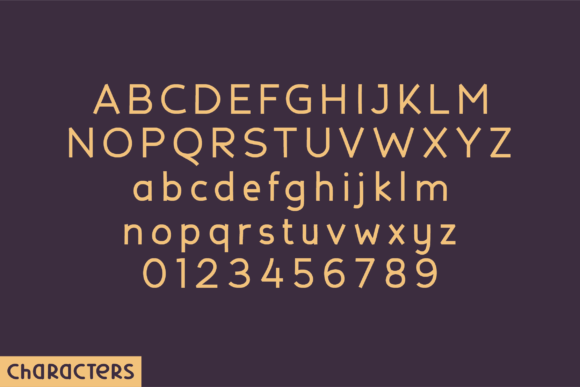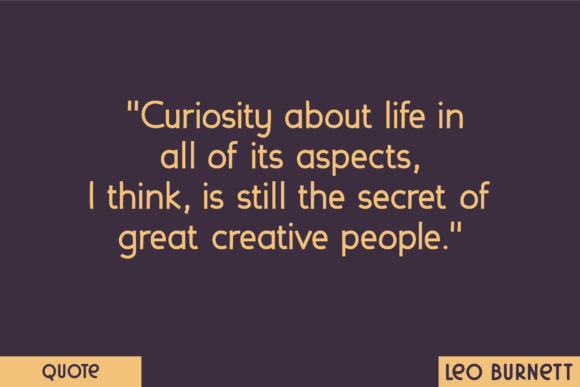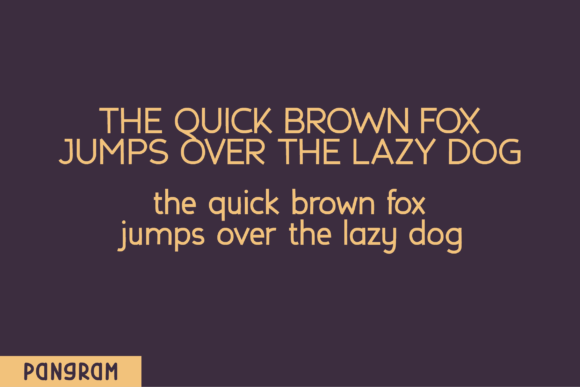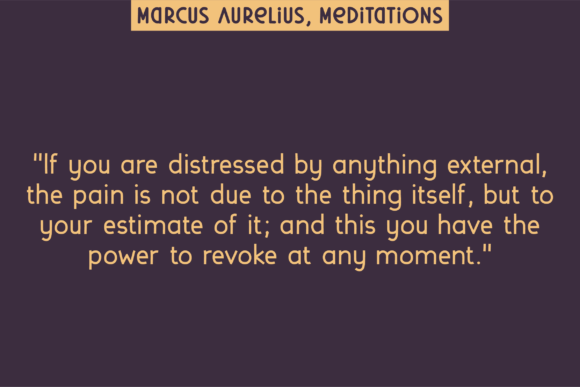
Introduction to Setteveli Font
Have you ever found yourself staring at a blank canvas, waiting for inspiration to strike? It’s a moment every designer knows all too well – the spark of creativity that sets off a chain reaction of ideas. For those of us who live for that rush, the right design resource can be the difference between a mediocre project and a masterpiece.
Enter the Setteveli Font, a stunning sans serif creation that’s as versatile as it is unique. With its transparent background and high-quality design, this font is perfect for any creative project that demands attention to detail. Whether you’re working on a quote, a note, or even a product design, the Setteveli Font is an invaluable asset that’s sure to elevate your work.
Key Features of Setteveli Font
- High-quality font with a unique, hand-drawn design, perfect for creative projects.
- Setteveli Font is offered in a transparent background version, allowing for seamless integration with any design.
- Designed with a high resolution of 1024 x 1024 pixels, ensuring crisp and clear text rendering.
- Perfect for use in a variety of creative projects, including logos, branding, and editorial design.
Honest Review: Setteveli Font
As a designer, I’m always on the lookout for high-quality design resources to elevate my creative projects. Recently, I had the chance to try out the Setteveli Font, and I must say, it’s a solid addition to any design arsenal.
Here are some key features that stood out to me:
- Transparent background makes it ideal for overlaying on images
Limitations: ⚠️ The font may not be suitable for very formal or traditional designs, as its modern aesthetic may not fit the bill. Additionally, the font’s compatibility may vary across different platforms and software.
Overall impression: I’m impressed with the Setteveli Font’s quality and versatility. It’s a great resource for designers looking to add some modern flair to their creative projects. Just be aware of its limitations and adjust your expectations accordingly.
The Setteveli Font is a unique and high-quality design resource that can elevate any creative project. With its transparent background, this font is perfect for designers who want to add a touch of elegance to their work.
Tips for Getting the Most Out of Setteveli Font
To get the most out of Setteveli Font, experiment with different font sizes, colors, and combinations. You can also use it in conjunction with other design elements, such as images and graphics, to create a visually appealing design.
Common Use Cases for Setteveli Font
Setteveli Font is perfect for designers who want to create high-end designs for business cards, brochures, and other marketing materials. It’s also great for personal projects, such as creating a unique logo or branding identity.
What is the recommended resolution for using the Setteveli Font?
The Setteveli Font is designed to be used at high resolutions, up to 300 DPI. This ensures that the font remains crisp and clear in various design applications, from print materials to digital displays. However, it’s always best to test the font at different resolutions to ensure optimal results for your specific design project.